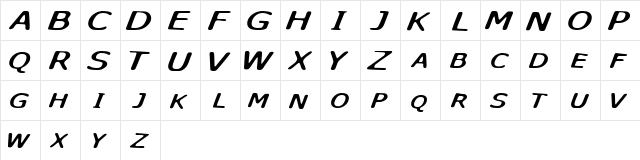
Sky Skunk Regular
Design Context for Sky Skunk Typeface
Sky Skunk takes a measured approach to typography — its balanced proportions and neutral character make it a reliable workhorse for both digital and print work.